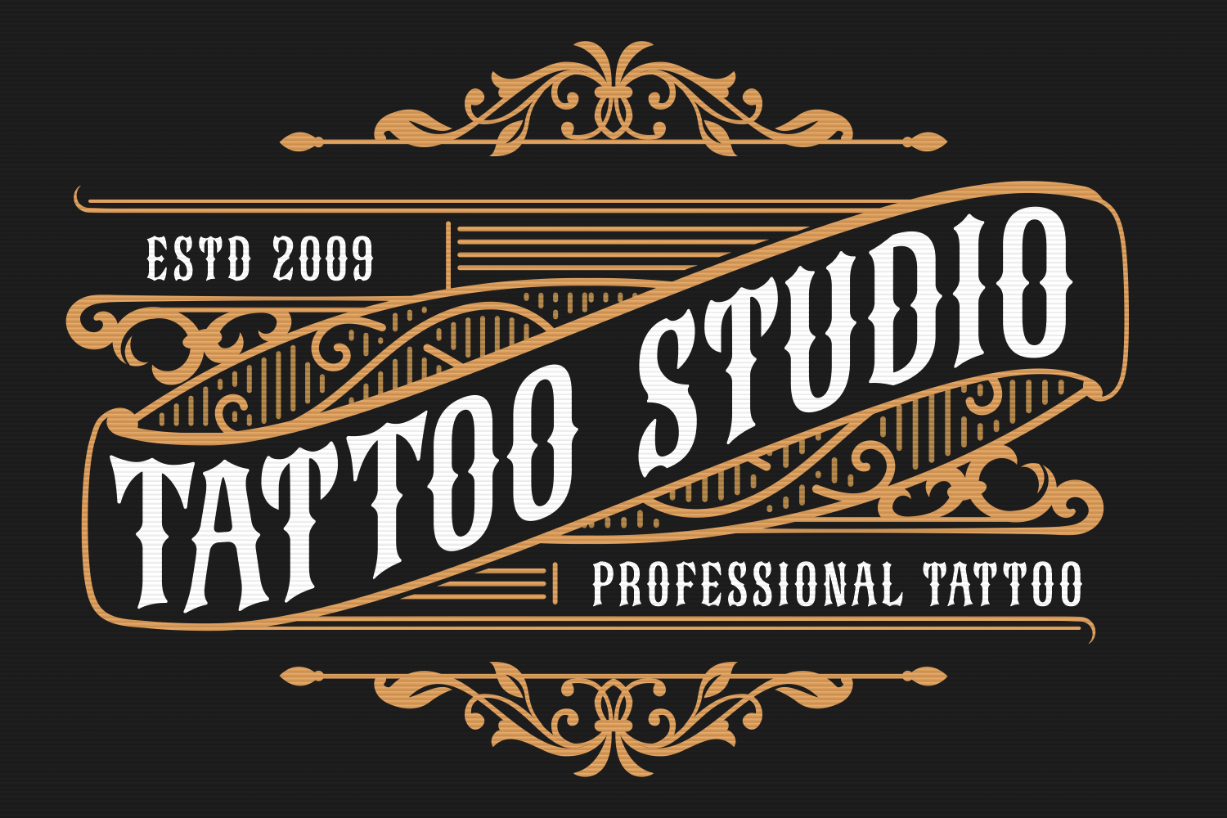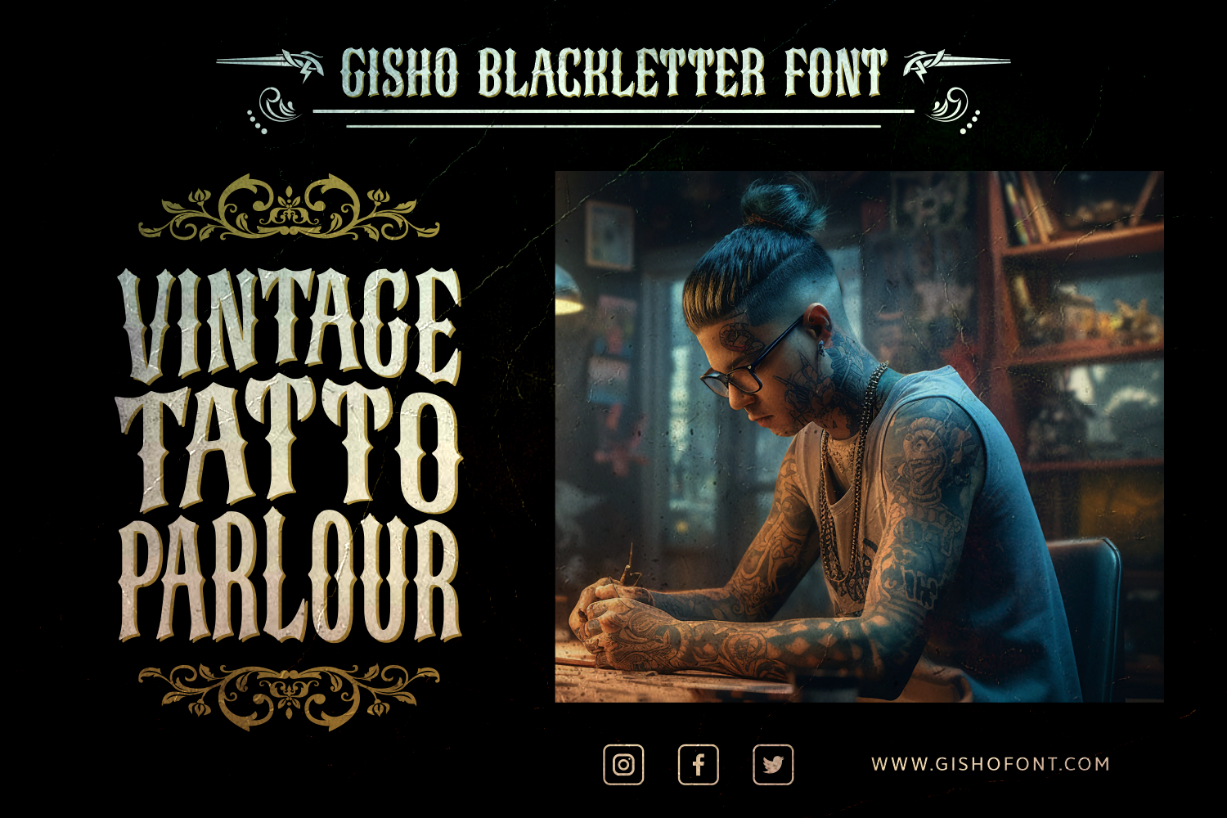
Gisho Font
About Gisho Font
Gisho, a blackletter vintage font, brings a touch of timeless elegance to your designs. With its classic and bold strokes, Gisho adds a hint of old-world charm to any project. Perfect for creating a vintage vibe, this font is versatile and easy to use. Whether you’re designing invitations, posters, or labels, Gisho lends a unique and historic flair to your typography. Embrace the allure of the past with Gisho’s distinctive blackletter style.